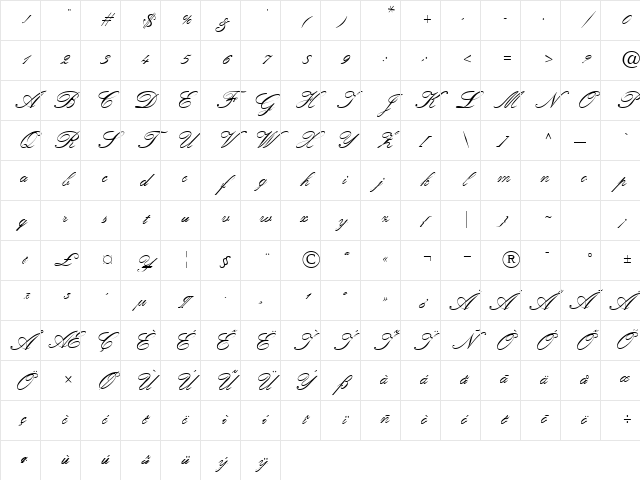
Amber Normal Free Font
Amber Normal
Design Context for Amber
Amber is a composed and adaptable typeface that performs quietly and consistently across a wide range of design contexts.